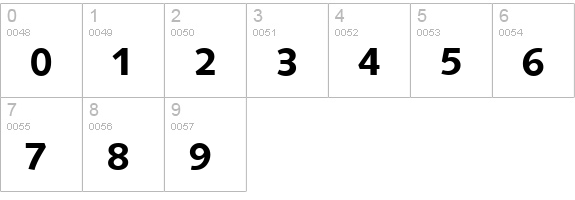
SaxonySerial-Bold Font Details
SaxonySerial-Bold is a strong, high-contrast variant in the SaxonySerial typeface family \xE2\x80\x94 well suited to headlines, attention-grabbing titles, and strong calls-to-action.
SaxonySerial-Bold is a modern and versatile typeface that exudes strength and confidence. Its bold strokes and sharp angles make a bold statement in any design project. This font is perfect for headlines, logos, posters, and any other project where you want to make a strong visual impact. The sleek and stylish design of SaxonySerial-Bold sets it apart from other fonts, making it a popular choice among designers and creatives. Whether you're working on a branding project, advertising campaign, or any other creative endeavor, SaxonySerial-Bold is sure to make your text stand out. And the best part? SaxonySerial-Bold is available for free download at FontsMarket.com! This means you can easily access this high-quality font without any cost, making it a valuable addition to your font collection. Don't miss out on the opportunity to enhance your designs with SaxonySerial-Bold today!